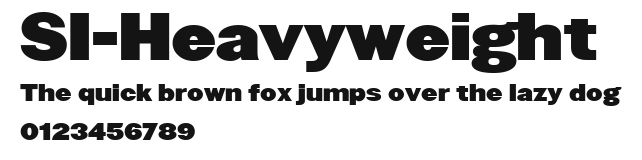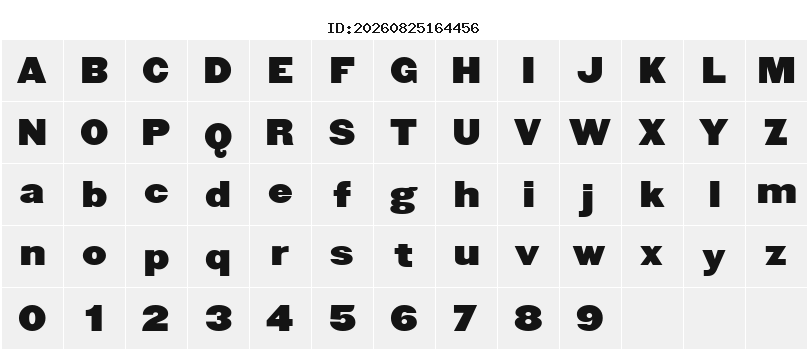
SI-Heavyweight Preview
About SI-Heavyweight.ttf
SI-Heavyweight.ttf is a modern, elegant sans-serif font designed for ultimate readability and visual harmony. Perfect for branding, headlines, web design, and print materials.